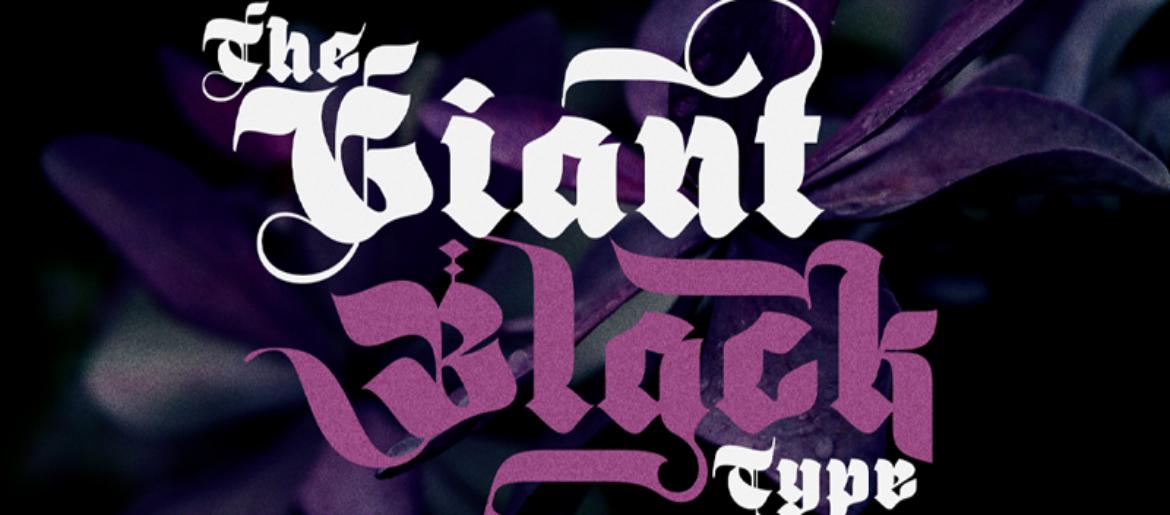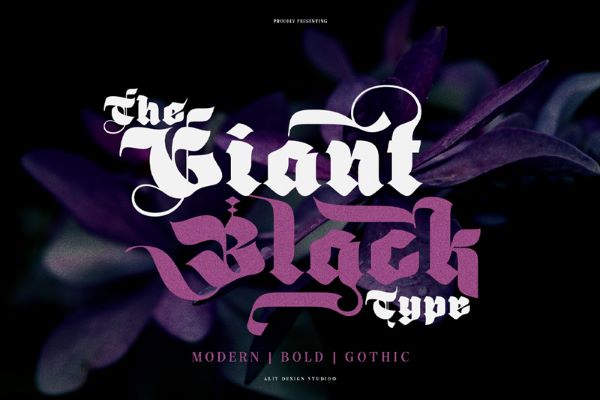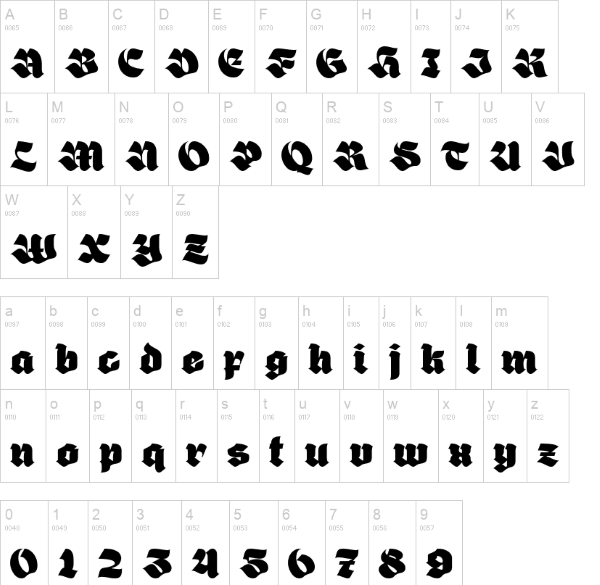
Giant Black Font
Giant Black Font is a powerful blackletter typeface that blends bold structure with refined elegance. Crafted with meticulous attention to detail, it features intricate swashes, expressive ligatures, and a wide range of alternates supported by PUA Unicode.
Each stroke delivers strength and sophistication, making the font ideal for commanding headlines, striking logos, and designs that demand presence. Whether used in medieval-inspired artwork or modern compositions, Giant Black maintains clarity while adding dramatic character. Designed to stand tall and confident, this typeface is built to leave a lasting impression.
➤ Font Name: Giant Black
➤ Designer: Alit Design
➤ Style: Modern
Giant Black font